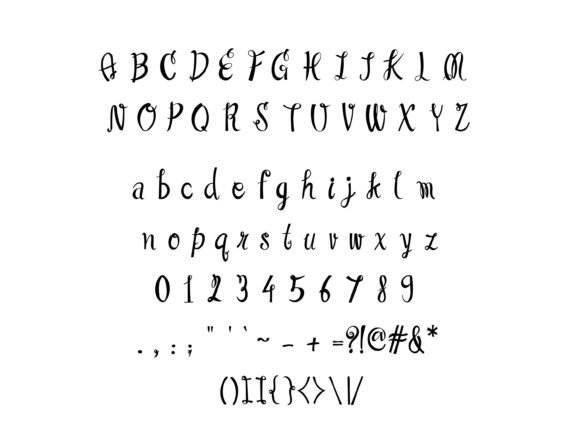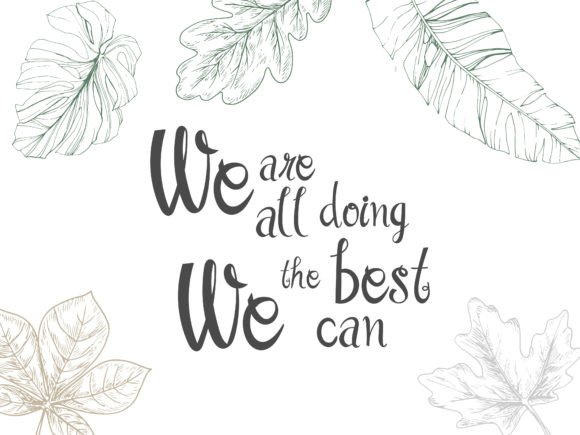
Kurlyhead Font
About Kurlyhead Font
**”Kurlyhead”** is a playful and fun handwritten font that adds a touch of whimsy and uniqueness to your typography. This font is particularly well-suited for informal-style work and projects that call for distinctive and creative lettering.
In informal design projects, **”Kurlyhead”** brings a sense of playfulness and character to your text. Whether it’s for casual marketing materials, event promotions, or personal projects, this font adds a fun and informal touch.
For projects that demand unique typography, **”Kurlyhead”** delivers with its playful and unconventional letterforms. It allows you to create text that stands out and captures attention, making it a valuable choice for creative and eye-catching designs.
Whether you’re working on posters, social media graphics, invitations, or any project that requires a touch of originality, **”Kurlyhead”** is a font that can help you achieve a distinctive and playful look.
In summary, **”Kurlyhead”** is a playful and fun handwritten font that is perfect for informal-style work and projects where unique and creative typography is needed. Its whimsical style adds character and charm to a wide range of design applications, allowing you to create eye-catching and distinctive designs.